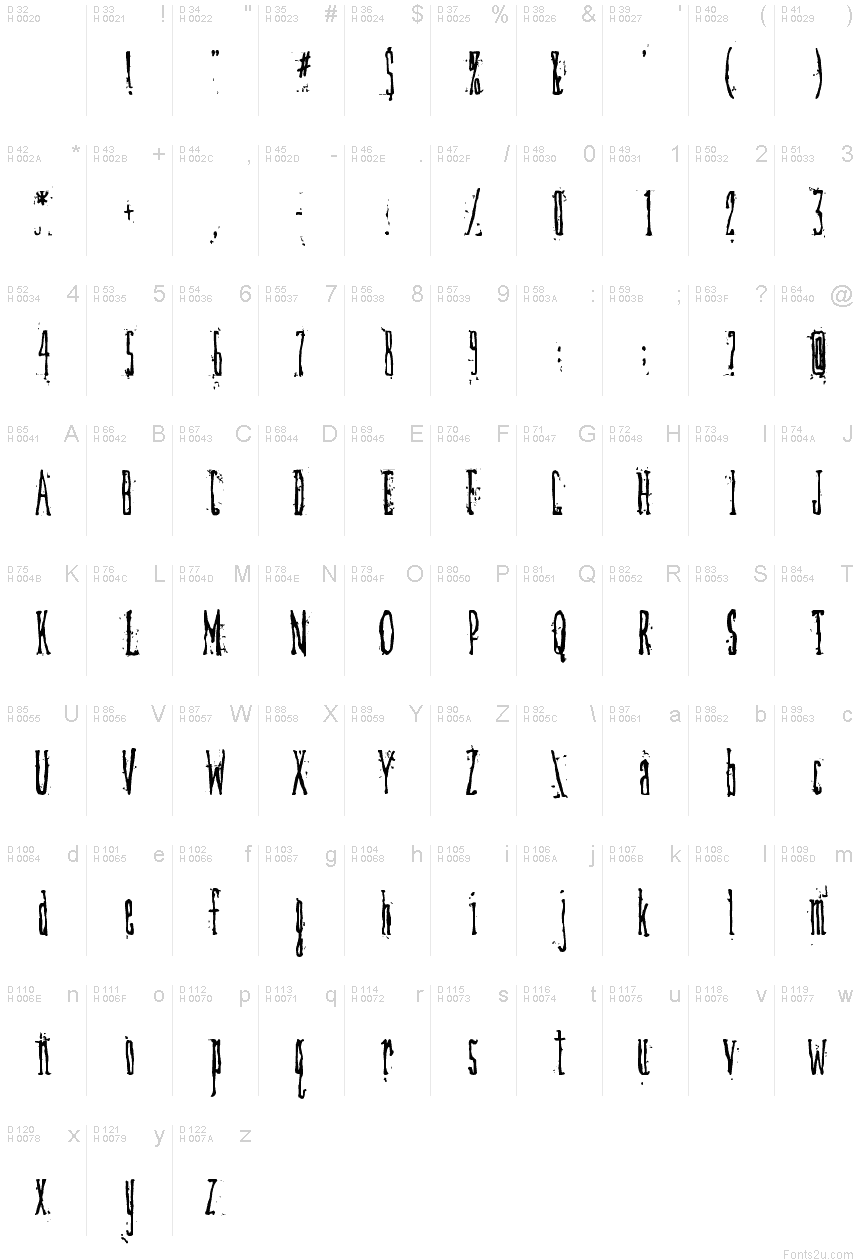
DirtyDeco
Dirty Deco font by Roland Frantz is a free distorted display typeface that drips with grunge and decay. Tall, spindly letterforms are scratched, chipped, and splattered, as if pulled from a crumbling theater poster or a rain-soaked flyer left on a brick wall. The texture feels almost inky and corroded at the same time, giving every word an uneasy, cinematic tension.
Using Dirty Deco, you can instantly push artwork into eerie, distressed territory—great for horror movie titles, haunted house posters, album covers, escape room branding, zines, and gritty event flyers. This free font shines at large sizes where the specks, cracks, and splatters stay visible. Pair it with a clean, understated sans serif for body copy to keep everything legible while Dirty Deco handles the drama.